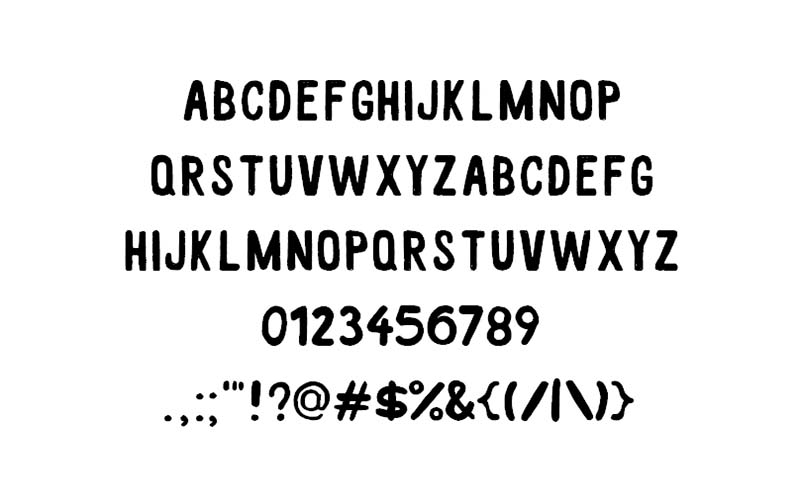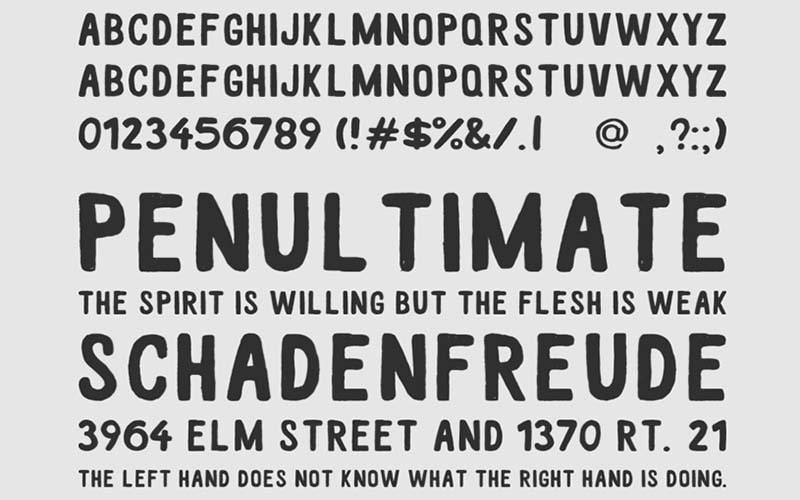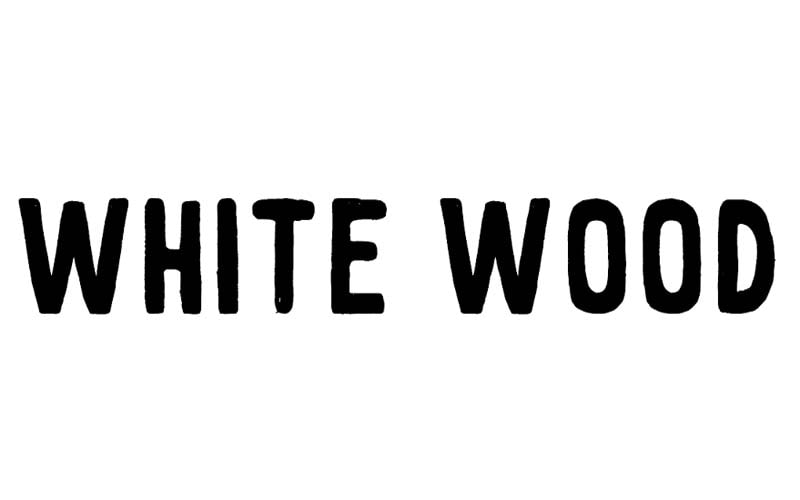
White Wood Font is a comic and cartoon typeface that has a unique and thick stroke texture. Zansari took charge of designing and releasing it for the first time.
This bold font can be found in only one style with Open Type features and it also contains 62 characters. If you look at any character, you will know that the designer is fully committed to it.
You can openly work along with that. In various fields like game titling, game development, book covers, cartoon titlings, secret projects, movie posters, cartoon series, animated movies, logo bold heading, and so on.
Each font has a unique and rare style that identifies. So, similarly, its heavy strokes, with rounded corners, and x-height show its identity. And if someone has a developer, they will develop a complete game with his help.
The designer has created such a unique font with his workmanship and experience, which will leave many behind. Just because of its uniqueness and cleanliness.